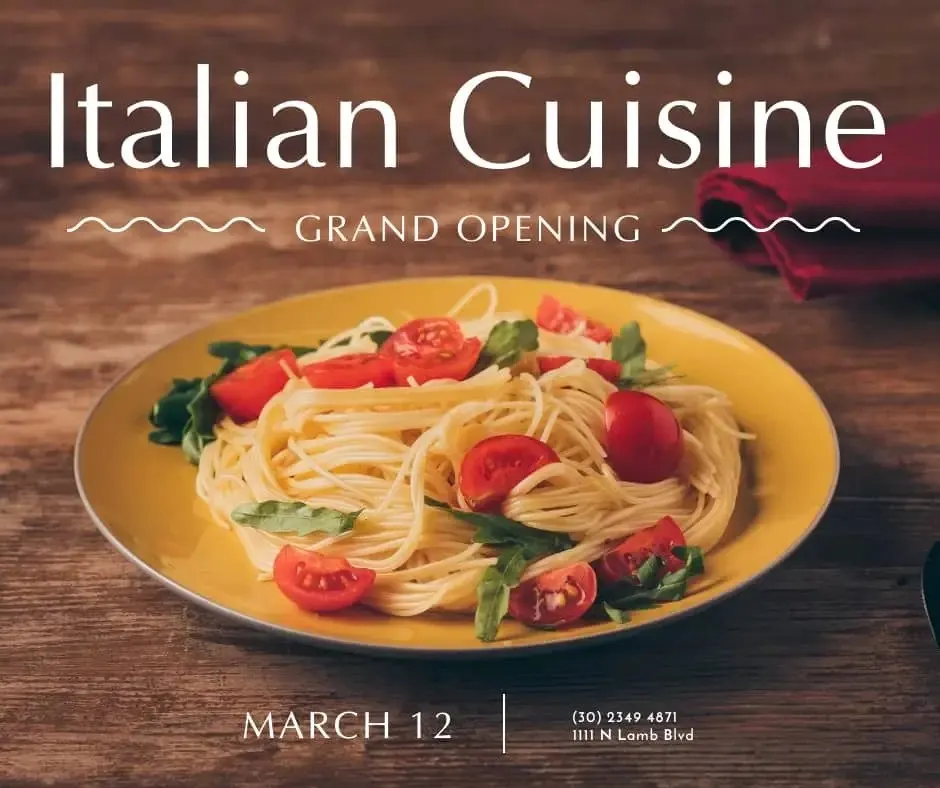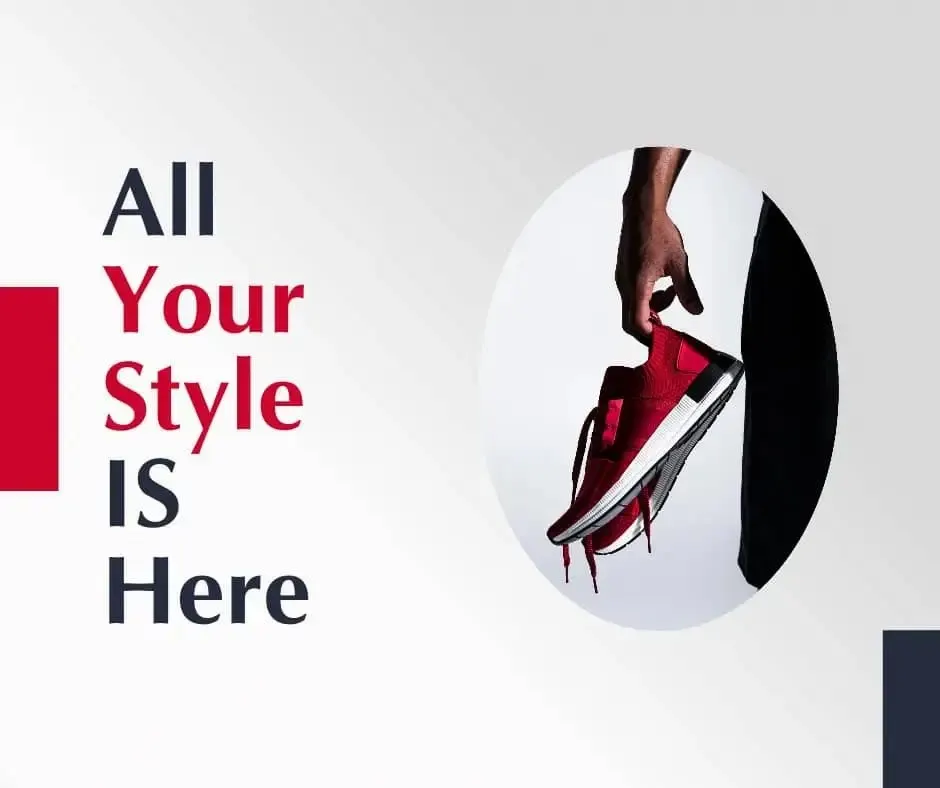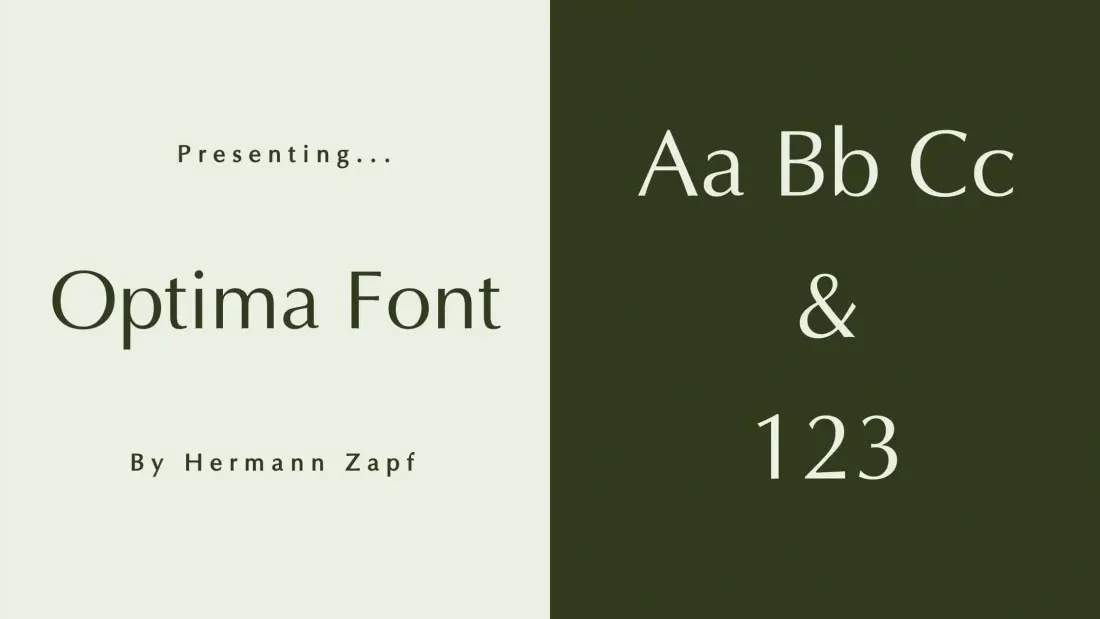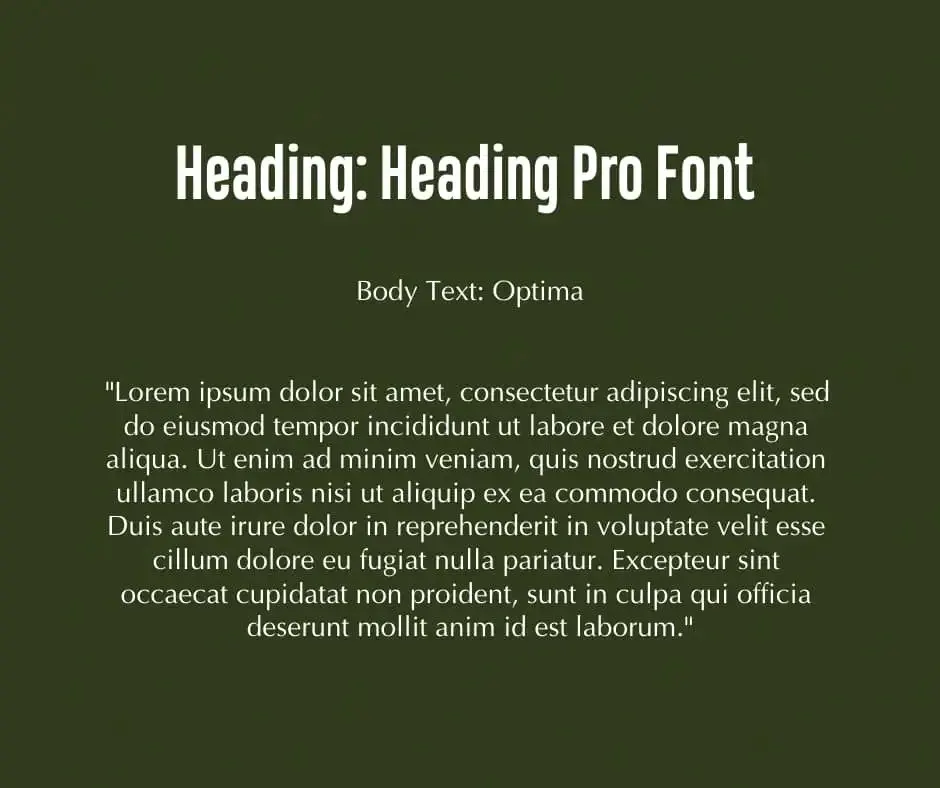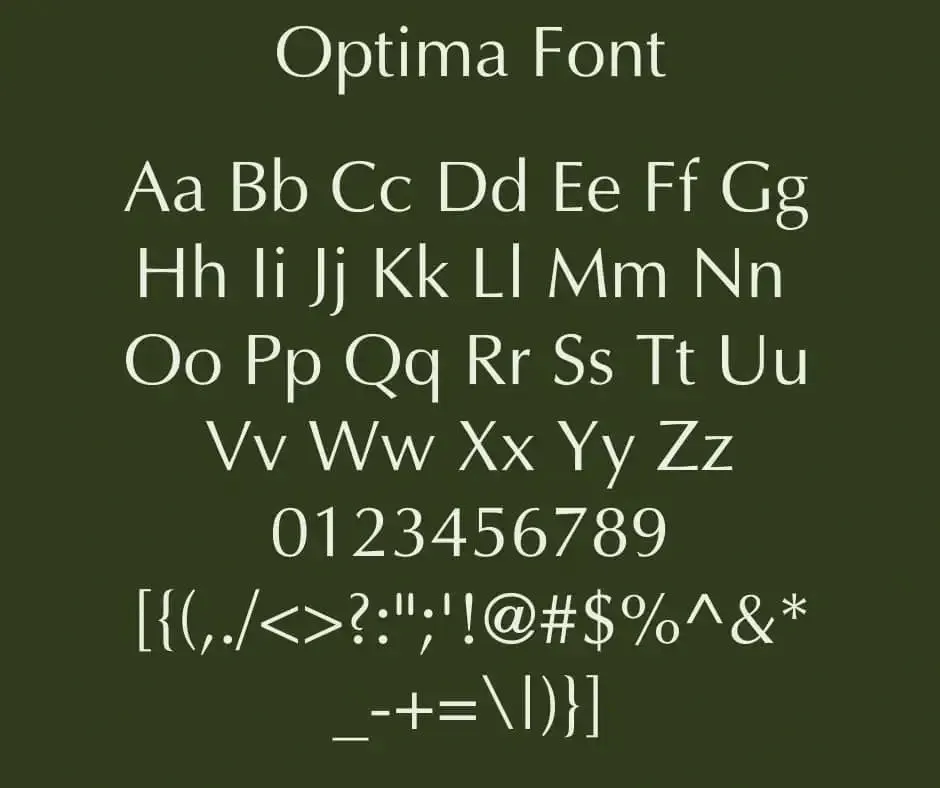
About Optima Font
Humanist sans-serif fonts are defined by the presence of the hand, an uppercase proportioned similarly to massive Roman capitals, a lowercase shaped similarly to Carolingian script and a more organic structure in general. Presenting Optima, A humanist sans-serif typeface designed by Hermann Zapf. When Optima was first introduced, it quickly gained popularity, which led to comparisons with other typefaces such as Garamond and the Centaur Font. This typeface also has similar characteristics to these two fonts. The Optima Font is available for download for personal use only.
The design of Optima is humanist in nature; its capitals are inspired by the ancient Roman monumental capital type, demonstrating love for Roman capitals as a proper shape. Optima is a sample of a modulated-stroke sans-serif, a form of design in which the stroke widths vary. Since the late nineteenth century, the design style has been sporadically popular; It is one of the genre’s most enduring manifestations.
Linotype released an updated version in 2002, named Optima Nova. As with many popular typefaces, copycat designs and re-releases under new names have been issued, some of which were designed by Zapf himself. All of them seem to be copies of the original form, rather than the Optima nova design, which reflects Zapf’s final opinions on the design. With 12 styles, Optima supports up to 81 different languages.
Usage of Optima Font
Optima was used in many Expo 67-related materials, including the Expo’s official logo and several publications. At the National September 11 Memorial & Museum, which is titled “Reflecting Absence,” Optima was selected as the typeface to be used for the names of those who died in the September 11 attacks, which are carved onto bronze parapets. This means that this typeface has been used in a number of significant places. As a result, you may use this typeface for logos, print, product packaging, and many other purposes without fear (remember to read the license section before using it).
Fonts Similar To Optima
- EF Radiant.
- URW Imperial.
- Contax Sans.
- Optima novaÂ.
- URW Classico.
- Zapf Humanist 601.
- Vanitas.
- Beausite Slick.
Optima Font Combination
This combo was created for the sake of design. For example, if you wish to use Optima for body text, Heading Pro should be used as the headline font.
If Optima is your titling font and you want a serif text font, Palatino (which was also developed by Herman Zapf) is definitely a decent option for you.
What fonts look like Optima?
EF Radiant, URW Imperial, URW Classico and many more fonts look like Optima.
What is Optima font used for?
Optima is an elegant sans-serif font. You can use this font for all kinds of projects. You can use this typeface for logos, print, product packaging, and many other purposes.
Is Optima a good font?
Yes, Optima is 100% safe and a good font for web and design purposes.